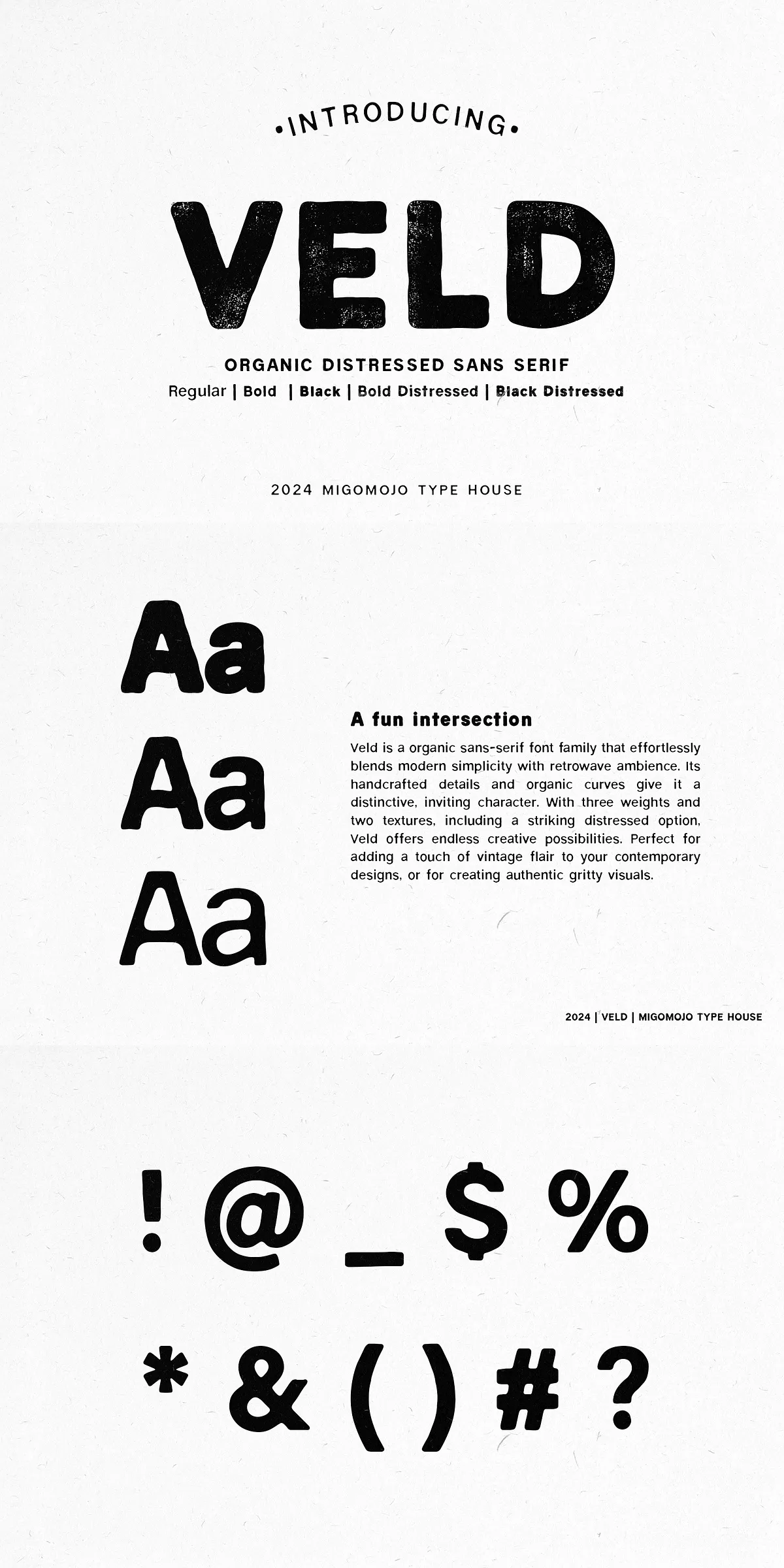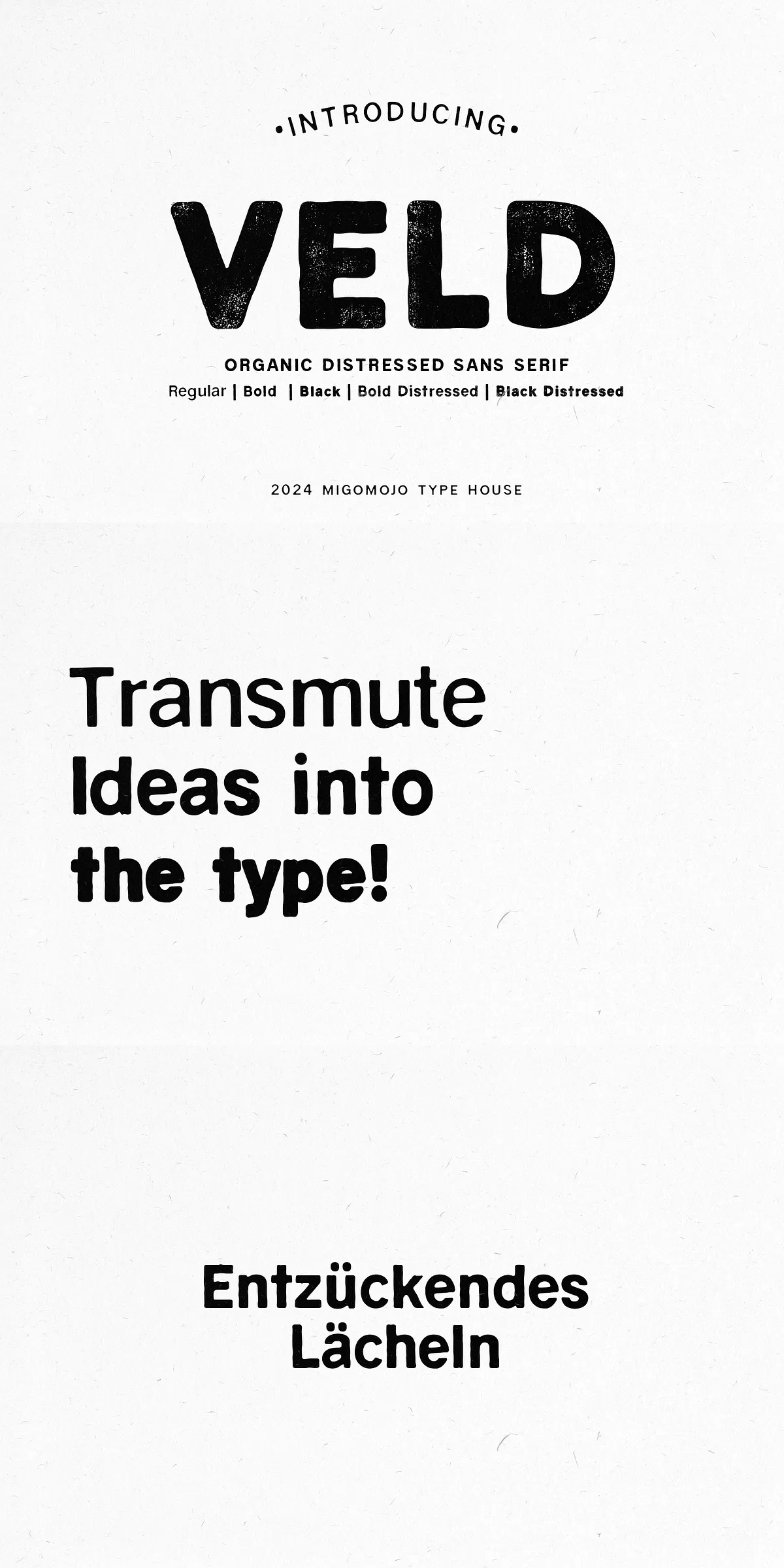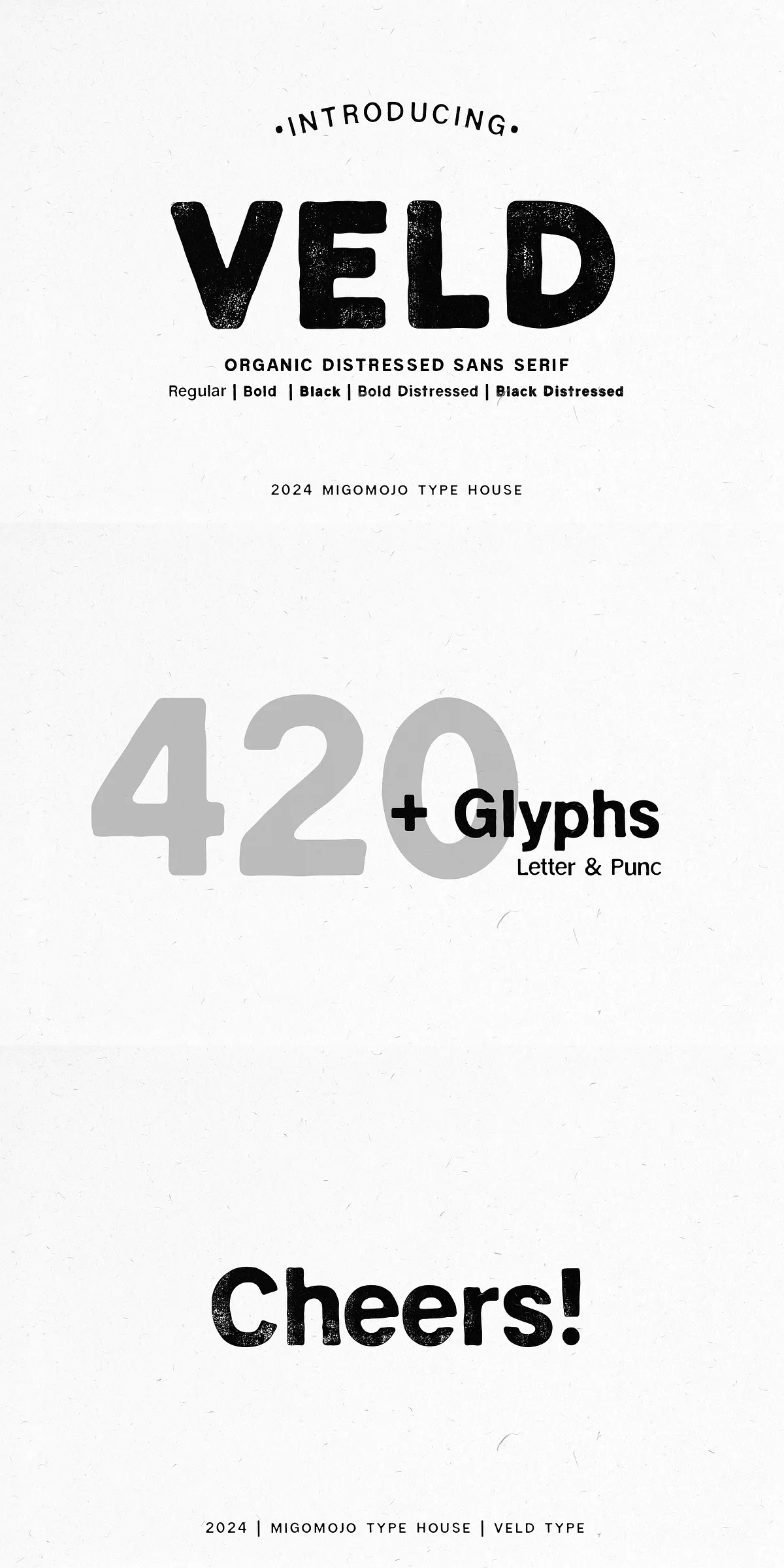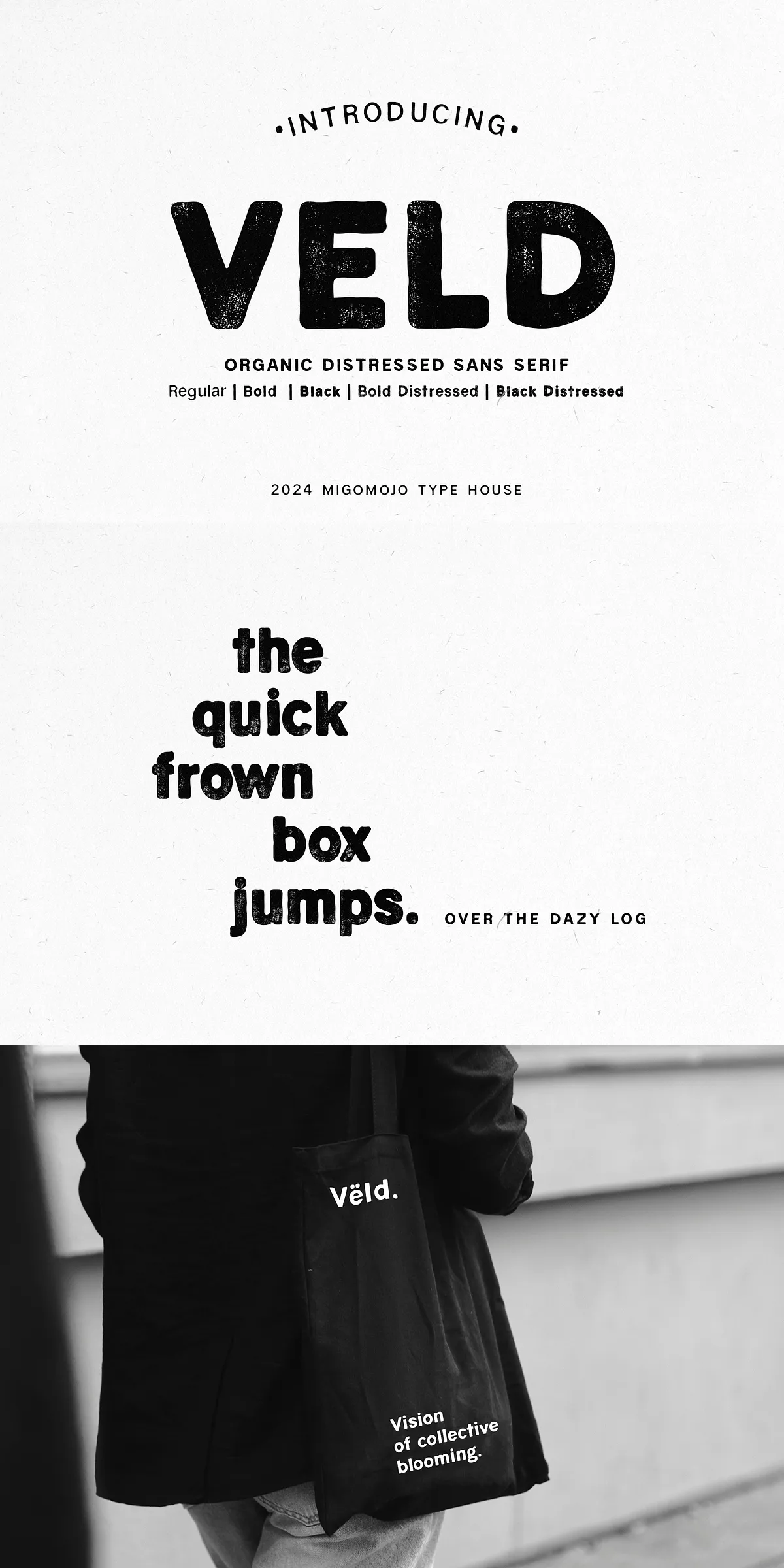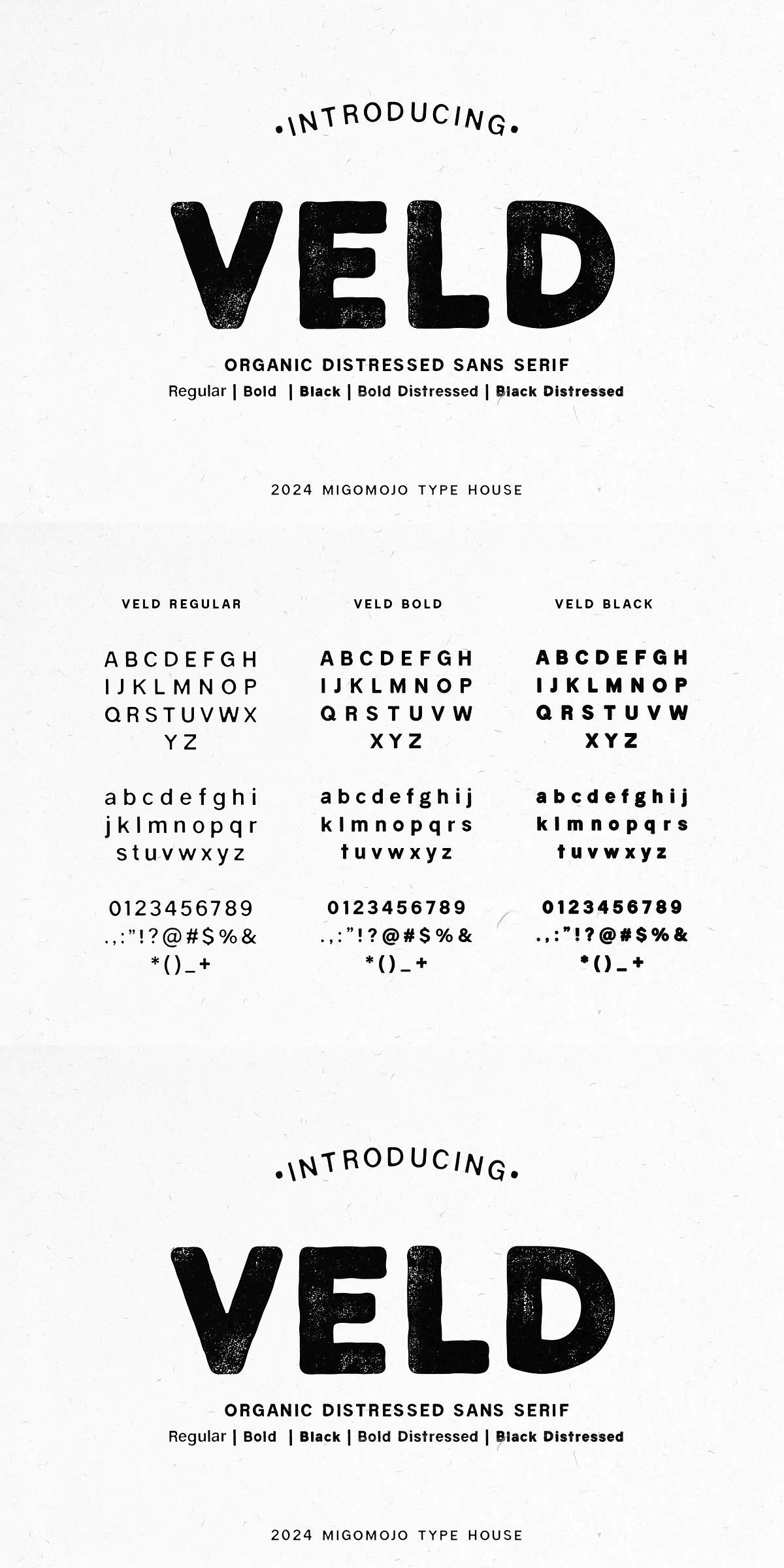
Step into a world where clean lines meet handcrafted soul. Veld isn’t just a font — it’s a statement of design philosophy. This organic sans-serif font family masterfully unites modern minimalism with the warmth of vintage ambience, creating a typeface that feels both current and timeless. Every curve is thoughtfully shaped to echo natural flow, every stroke carrying the subtle imperfections of handcrafting. Whether you’re designing a brand identity, a lifestyle blog, a poster, or a digital experience, Veld adds depth, character, and emotional resonance to your work.
Unleash Creative Freedom with 3 Weights & 2 Textures
Veld is built for versatility, offering three distinct weights – Regular, Bold, and Black – to give you precise control over hierarchy and emphasis. But what truly sets Veld apart is its two unique textures:
Standard Texture – Clean, Confident, and Modern
The standard versions deliver a crisp, balanced aesthetic. Ideal for headers, body text in digital narratives, and minimalist branding. The smooth, organic curves ensure readability without sacrificing charm, striking the perfect balance between simplicity and personality.
Distressed Texture – Gritty, Raw, and Fully Expressive
For designs that demand impact, presence, and a touch of urban edge, the Distressed variants are your secret weapon. Bold Distressed and Black Distressed bring texture to life with subtle wear, grain, and weathering effects. Use them to create authentic, aged visuals perfect for music posters, indie brand identities, retro packaging, or any project seeking a lived-in, expressive feel.
Perfect for Designs That Tell a Story
Veld thrives in creative spaces where emotion and authenticity matter. It’s the font you reach for when you want to:
- Anchor a contemporary design with vintage character – Elevate a modern layout with a sense of history and handcrafted authenticity.
- Develop a gritty, urban, or industrial aesthetic – The distressed textures instantly communicate texture, age, and raw energy.
- Build a warm, human-centered brand tone – The organic flow feels personal, welcoming, and approachable.
- Create compelling poster and print visuals – Its visual weight and unique texture stand out on flyers, zines, and banners.
- Veld Regular – Perfect for body copy and clean layouts.
- Veld Bold – Command attention with strong, confident headlines.
- Veld Black – Make a bold statement with maximum impact.
- Veld Bold Distressed – Inject character with a weathered, authentic edge.
- Veld Black Distressed – Deliver maximum visual power with a gritty, industrial feel.
Design Tips: Maximizing Veld’s Impact
- Pair textures intentionally – Use a standard weight for body text and a distressed version for accents or headers to create visual tension and interest.
- Choose a neutral or textured background – White backgrounds highlight the font’s clean lines, while textured or muted backgrounds let the distressed variants shine.
- Scale up for maximum effect – Veld’s organic details truly come alive at larger sizes; use it for displays, logos, and titles.
- Limit your palette – Let Veld be the star. Pair it with simple, unobtrusive colors to avoid visual clutter.
Elevate Your Work with the Soul of Veld
Stop blending into the digital noise. Veld gives you the tools to create work that feels real, human, and deeply connected. It’s not just about typography — it’s about crafting a feeling, a presence, a memory. Whether you’re a graphic designer, a brand strategist, a digital artist, or a creative entrepreneur, Veld empowers you to design with purpose and authenticity.